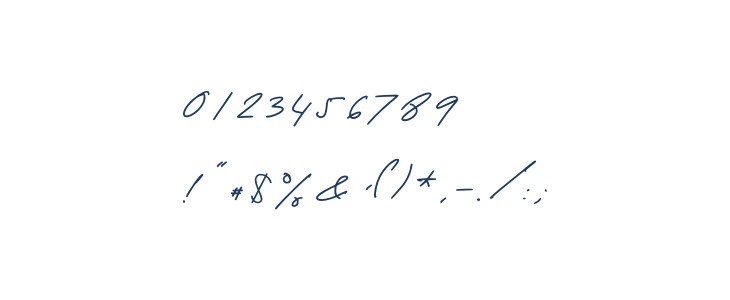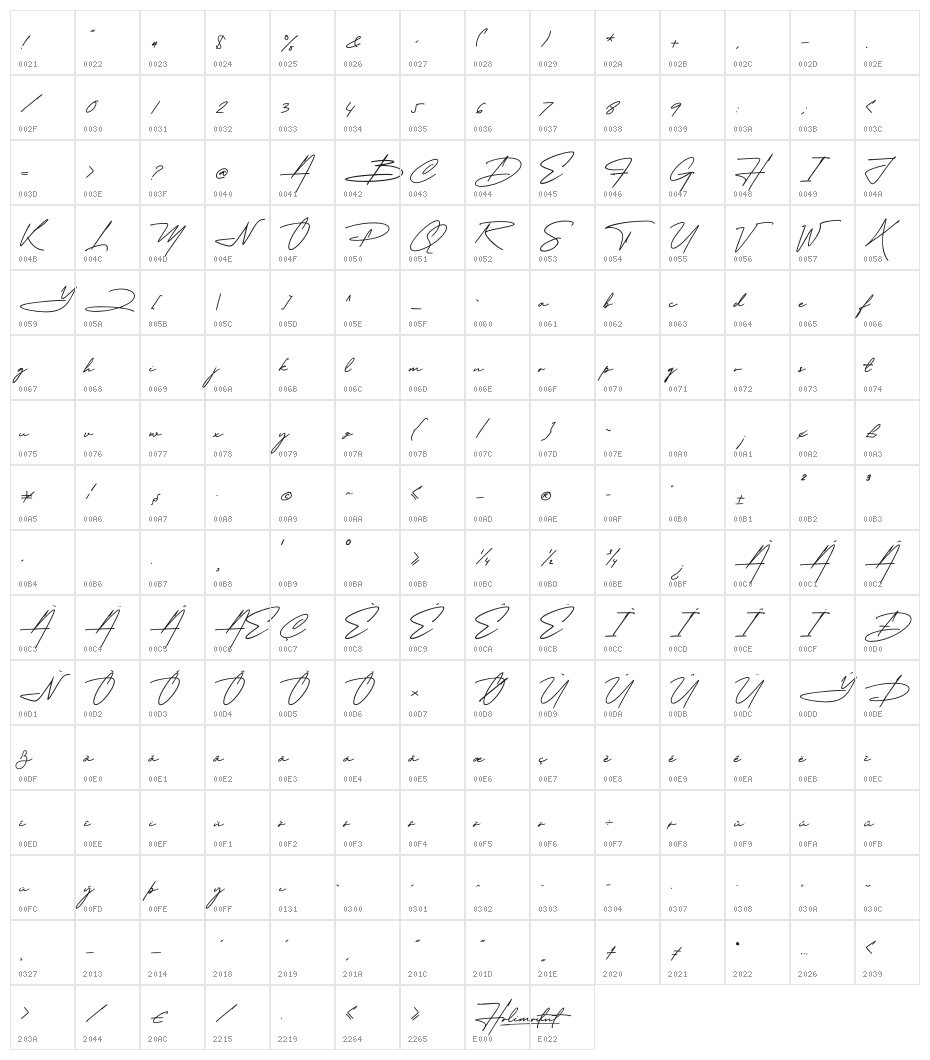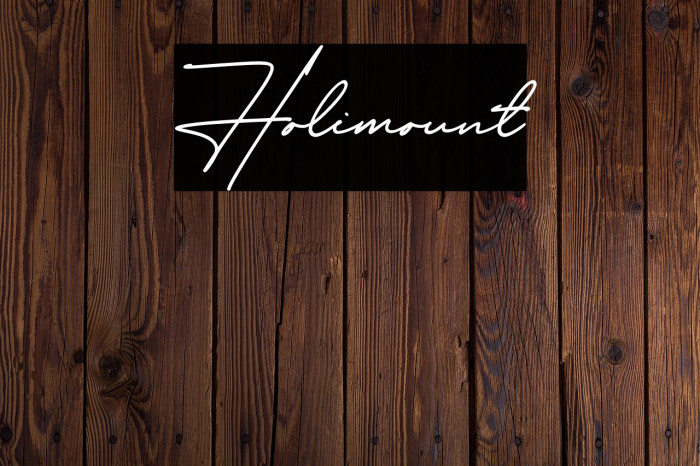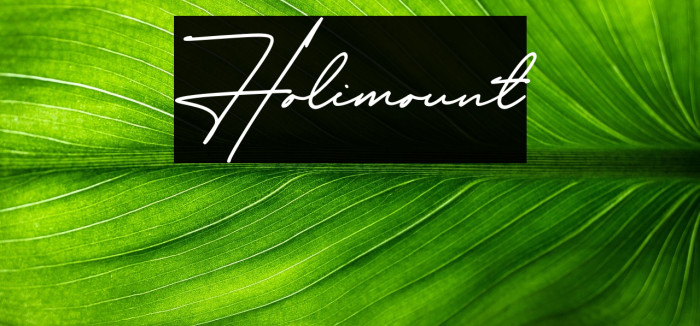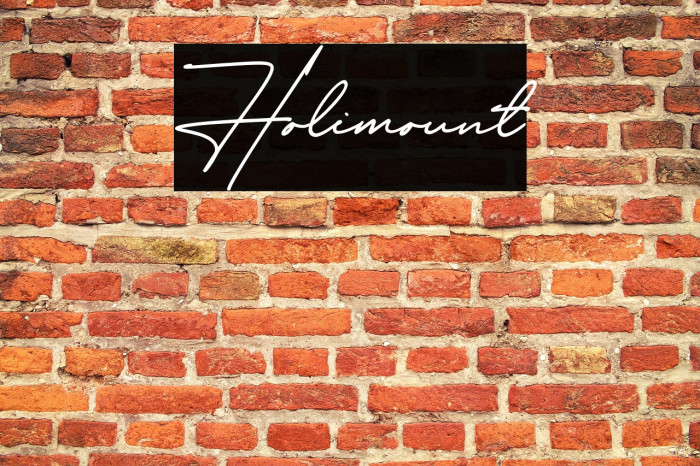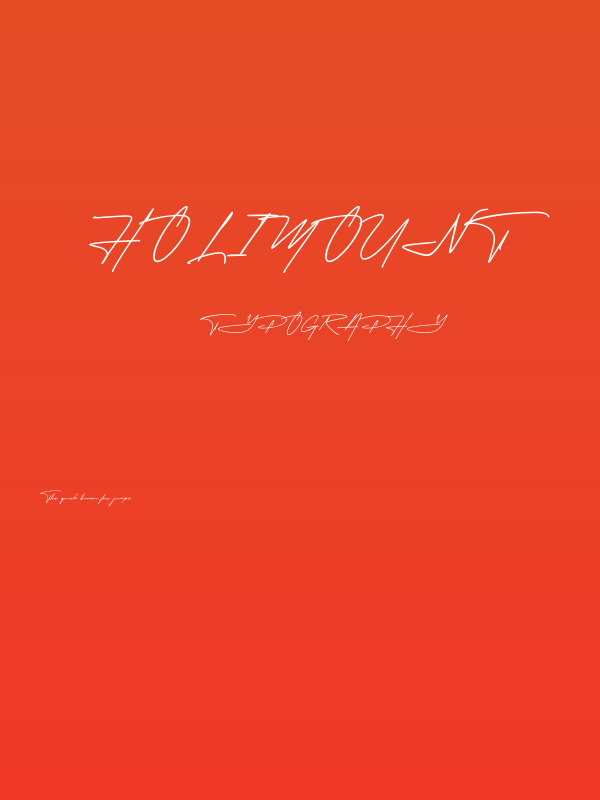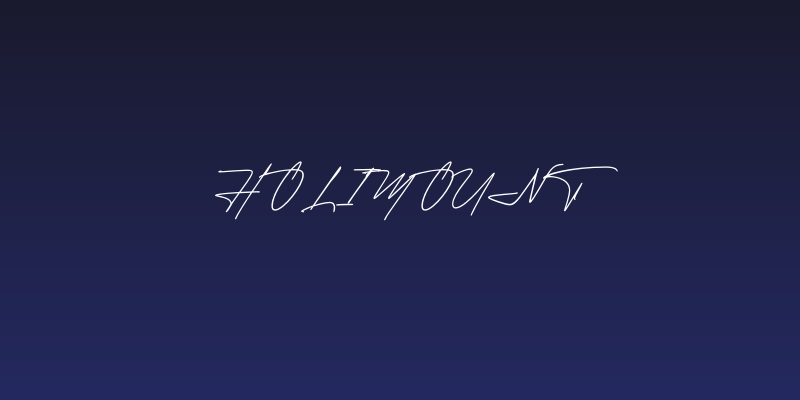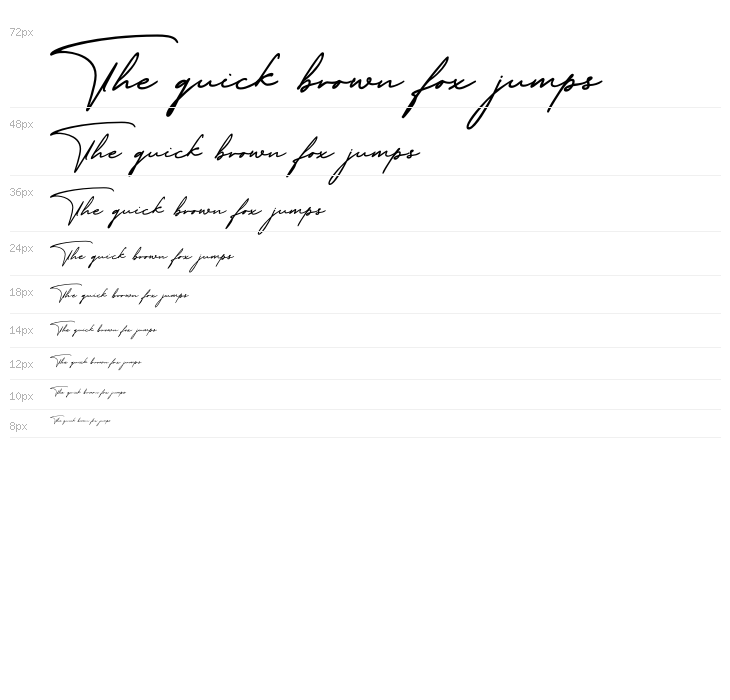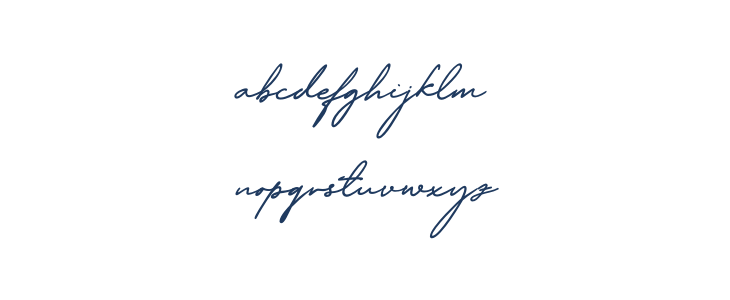
Holimount Font
Holimount Description
This font exudes a sense of elegance and fluidity, characterized by its cursive, handwritten style. The letters are interconnected with smooth, flowing lines that mimic natural handwriting. The uppercase letters are slightly more elaborate, with decorative loops and swirls, while the lowercase letters maintain a consistent and graceful form. The numerals and special characters follow the same aesthetic, ensuring a cohesive look across all text. The overall appearance is sophisticated and artistic, making it suitable for projects that require a personal touch.
| Overall Style | Elegant, Artistic |
| Use Case | Logos, Invitations, Personal Correspondence |
| Proposed Projects | Ideal for wedding invitations, personal letters, branding for luxury products, and artistic projects. |